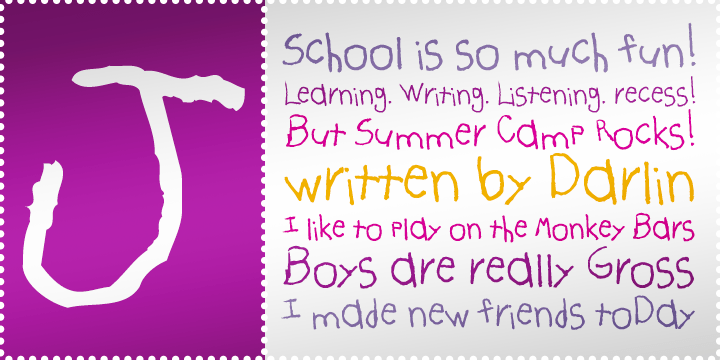
Darlin BTN
Darlin BTN is an authentic childlike handwriting font created from the real penmanship of a 6-year-old girl. Full of natural irregularity, playful charm, and unfiltered personality, it captures the genuine look of youthful handwriting in a way no imitation can. Darlin BTN is ideal for children's party invitations, classroom materials, educational projects, scrapbook pages, greeting cards, crafts, and designs that call for a sincere kid-made feel. Its honest handwritten character brings warmth, innocence, and playful spontaneity to any layout.